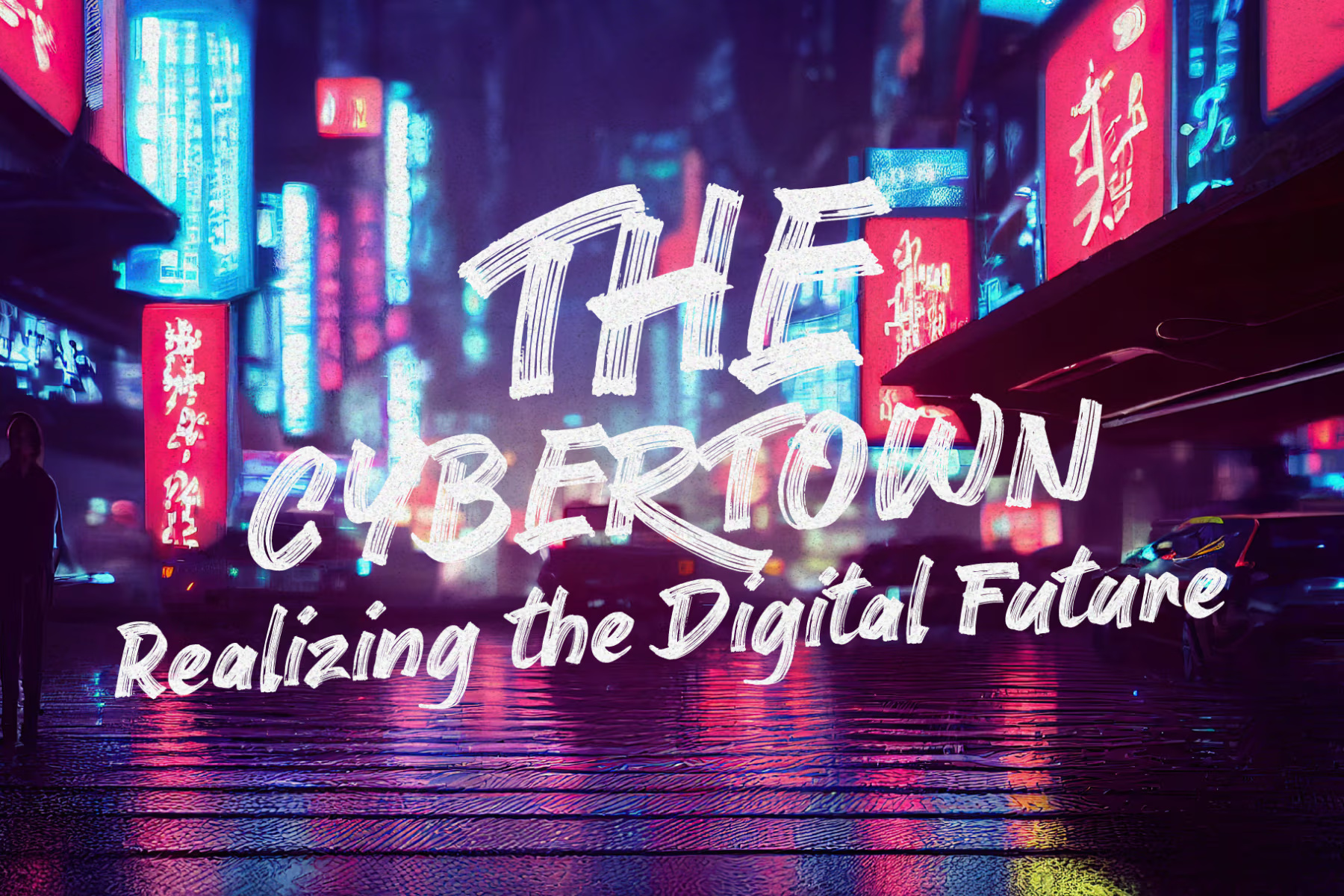
The Ocean Brush is a script brush font inspired by the fluidity of ocean waves. Each stroke captures the raw power of nature, creating a dynamic yet harmonious artistic effect. This unique balance—both serene and strong—makes it a versatile choice for various design projects.
The Ocean Brush handwritten font is perfect for artistic endeavors, including posters, logos, packaging, and social media graphics, adding a modern and spirited touch to any composition.
Ocean Brush Script Font